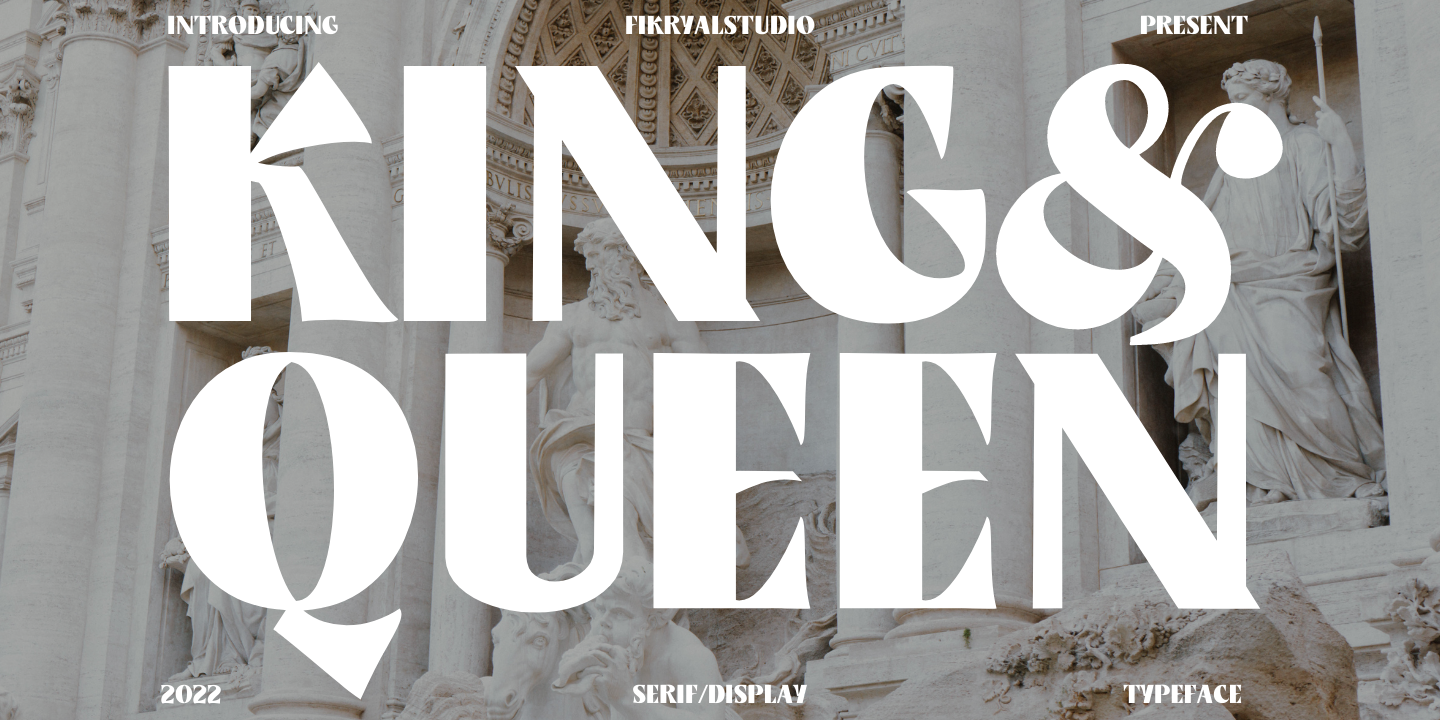
King & Queen Font is perfect for luxury hotel branding, royal wedding invitations, premium jewelry packaging, high-end fashion magazines, crown logo designs, palace restaurant menus, regal certificate designs, aristocratic event invitations, luxury real estate branding, exclusive club materials, and any project that requires majestic, elegant typography with royal sophistication.
What makes King & Queen Font exciting is its magnificent blend of royal grandeur and contemporary elegance. This prestigious typeface features stately letterforms with refined serifs and noble proportions that evoke the timeless authority and sophistication of monarchical tradition. The font's commanding presence and dignified character make it an exceptional choice for brands seeking to convey prestige, exclusivity, and premium quality while maintaining exceptional readability that befits the highest standards of luxury communication.
King & Queen Font family includes ornate decorative elements, royal flourishes, and crown-inspired ornaments, providing designers with regal options for creating truly majestic typographic compositions. The font family typically offers multiple weights, decorative capitals, and ceremonial alternates that enhance the royal aesthetic and allow for prestigious brand presentations worthy of nobility.
Whether you're designing for luxury brands, exclusive events, or premium hospitality services, King & Queen Font Free Download delivers the imperial elegance and visual majesty that high-end design projects demand. Its authoritative style makes it ideal for luxury hotels, fine jewelry brands, exclusive private clubs, and premium service providers seeking to establish sovereign brand presence.
The font's regal bearing and crystal-clear legibility ensure your message commands respect while maintaining its royal splendor. With King & Queen Font, your designs will reign supreme with unmatched elegance and aristocratic distinction.